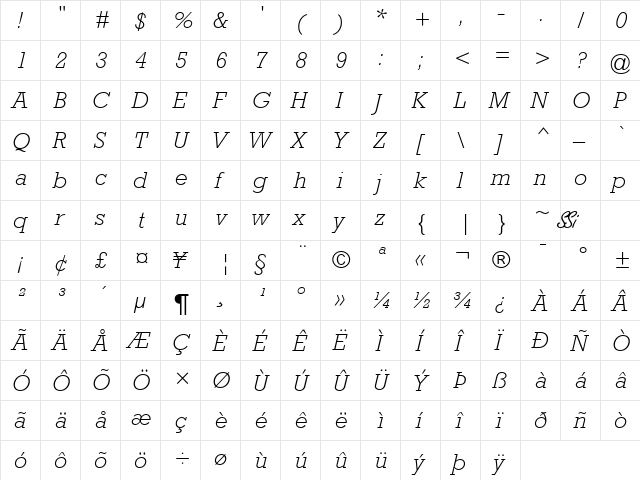
Astute Light SSi Light Italic Font Preview
Design Context for Astute Light SSi Typeface
Astute Light SSi offers clean, dependable letterforms without strong stylistic allegiance, making it a practical choice for designers who need flexibility. Its italic angle brings a sense of urgency and motion to the letterforms. The delicate stroke weight brings airiness and refinement to layouts.